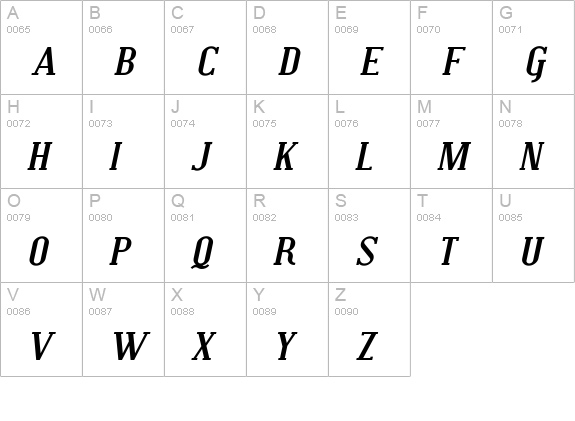
Covington Exp Bold Italic is a strong, high-contrast, italic variant in the Covington typeface family \xE2\x80\x94 well suited to headlines, attention-grabbing titles, and strong calls-to-action.
Covington Exp Bold Italic font is a striking and sophisticated typeface that exudes elegance and modernity. Its bold yet graceful letterforms make it perfect for adding a touch of sophistication to any design project. Whether you're creating invitations, branding materials, or editorial layouts, Covington Exp Bold Italic font is sure to make a bold statement. The best part? This stunning font is available for free download at FontsMarket.com, making it accessible to designers, creatives, and typophiles alike. Don't miss out on the opportunity to elevate your designs with this exquisite typeface. Download Covington Exp Bold Italic font today and let your creativity shine!